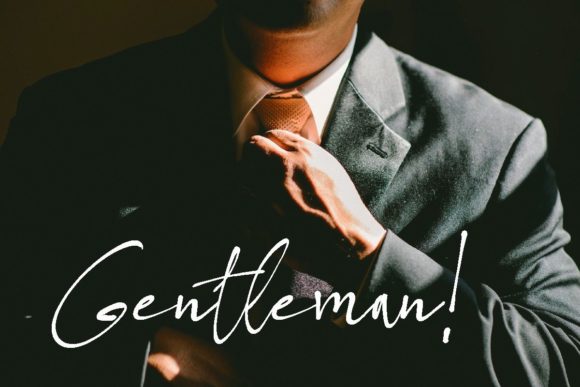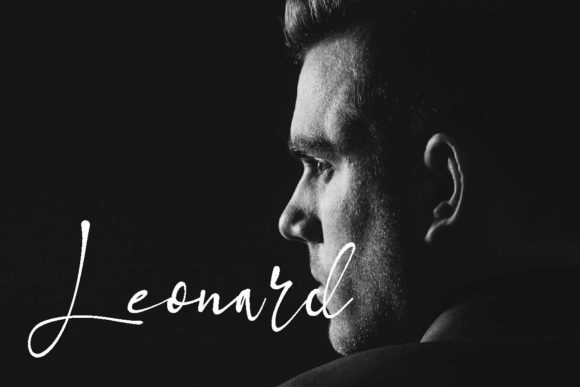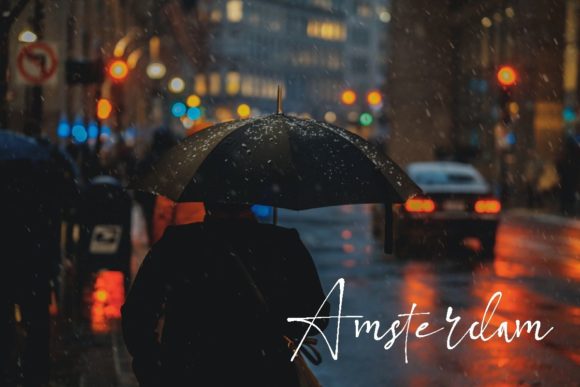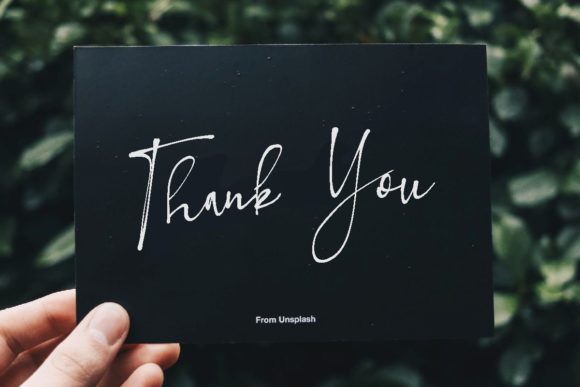
Adventure Font
About Adventure Font
Adventure is a lovely script font featuring charming, playful characters that seem to dance along the baseline. Add this font to your most creative ideas, and notice how it makes them stand out!